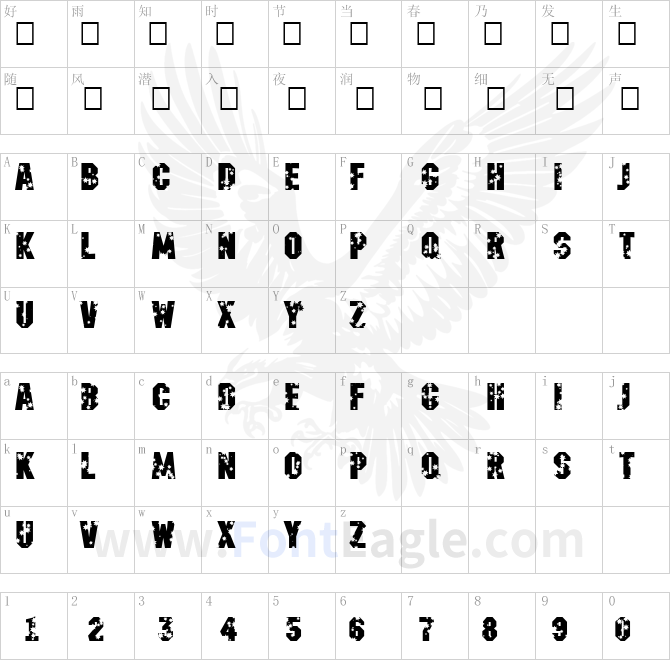
- Font name:a_MachinaNovaStarD
- Font Subfamily ID:a_MachinaNovaStarD Bold
- Font Full Name:a_MachinaNovaStarD Bold
- Postscript:a_MachinaNovaStarD-Bold